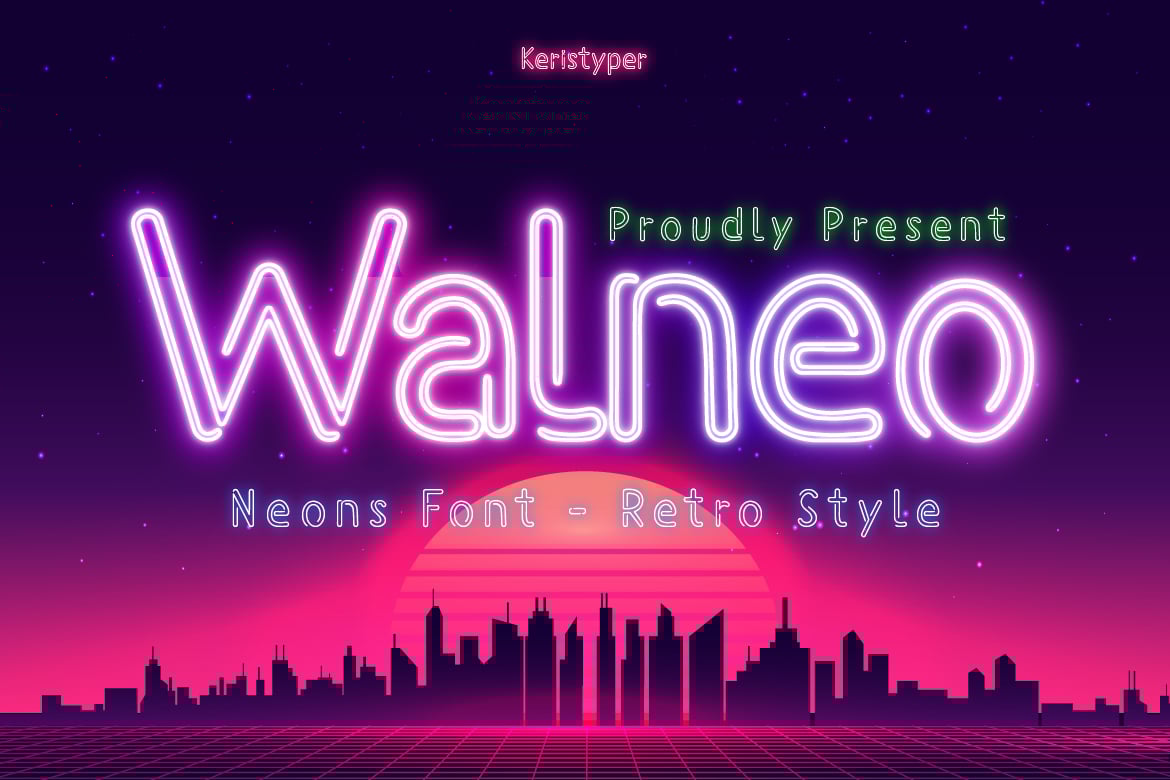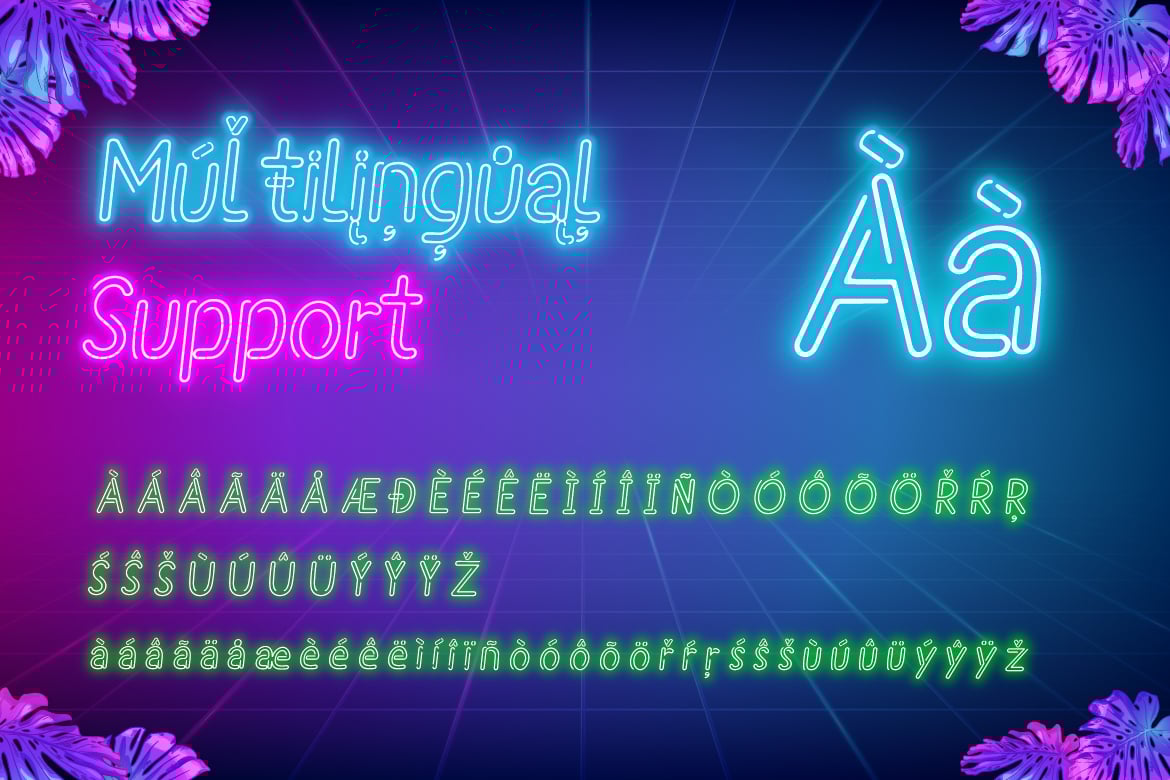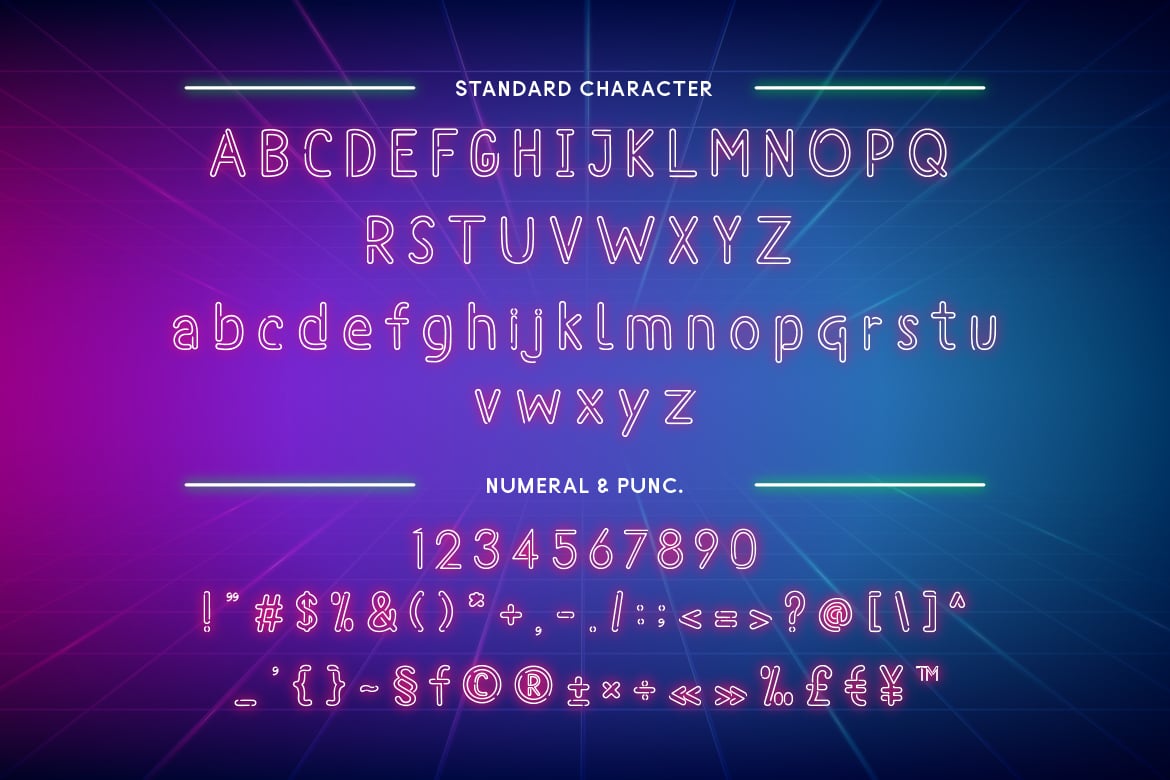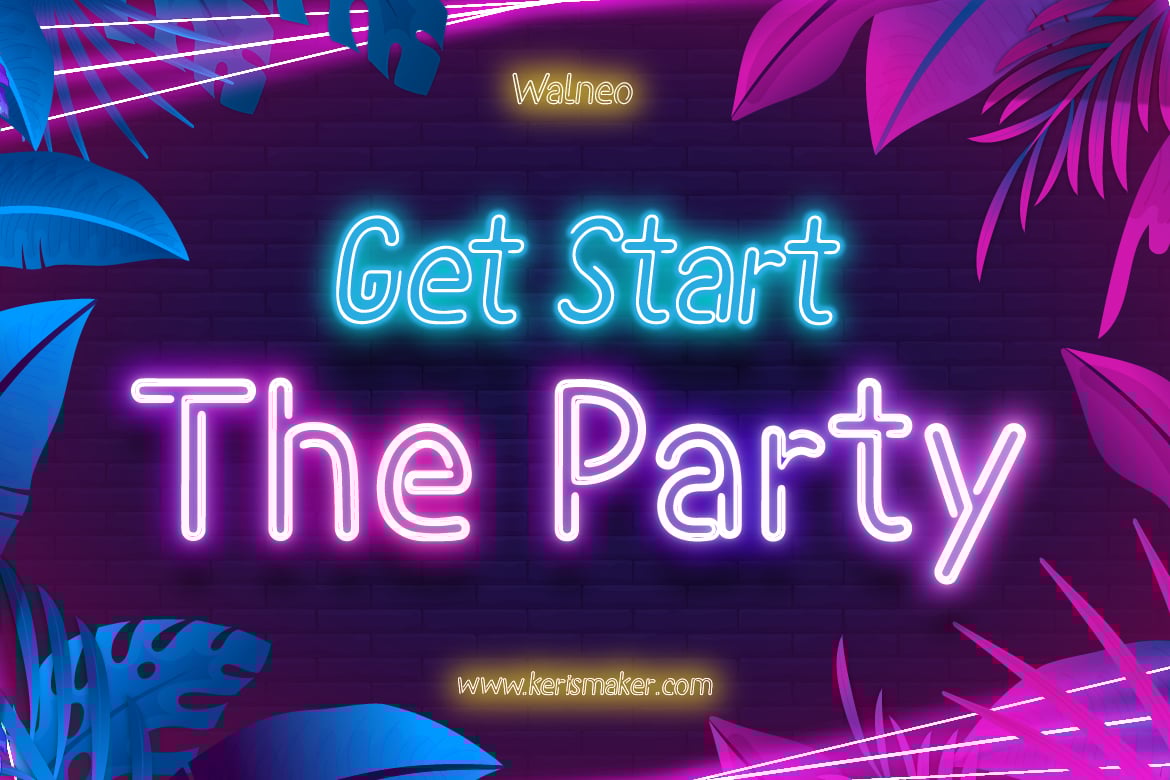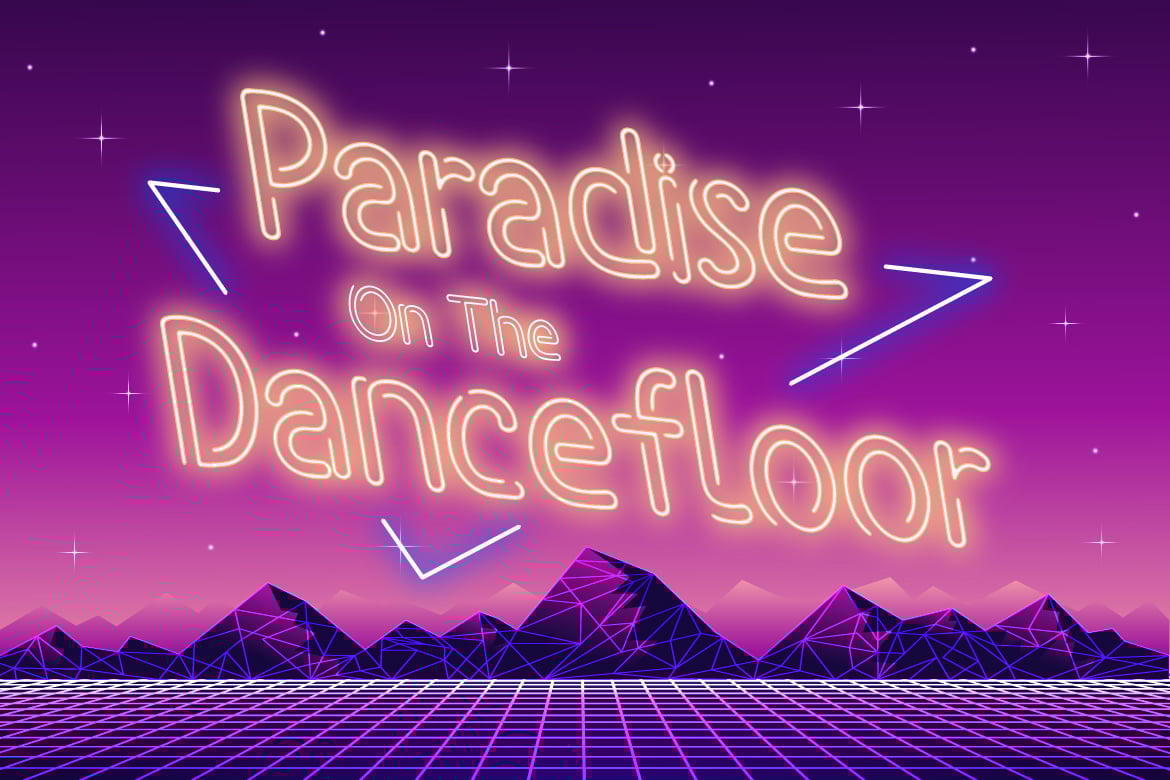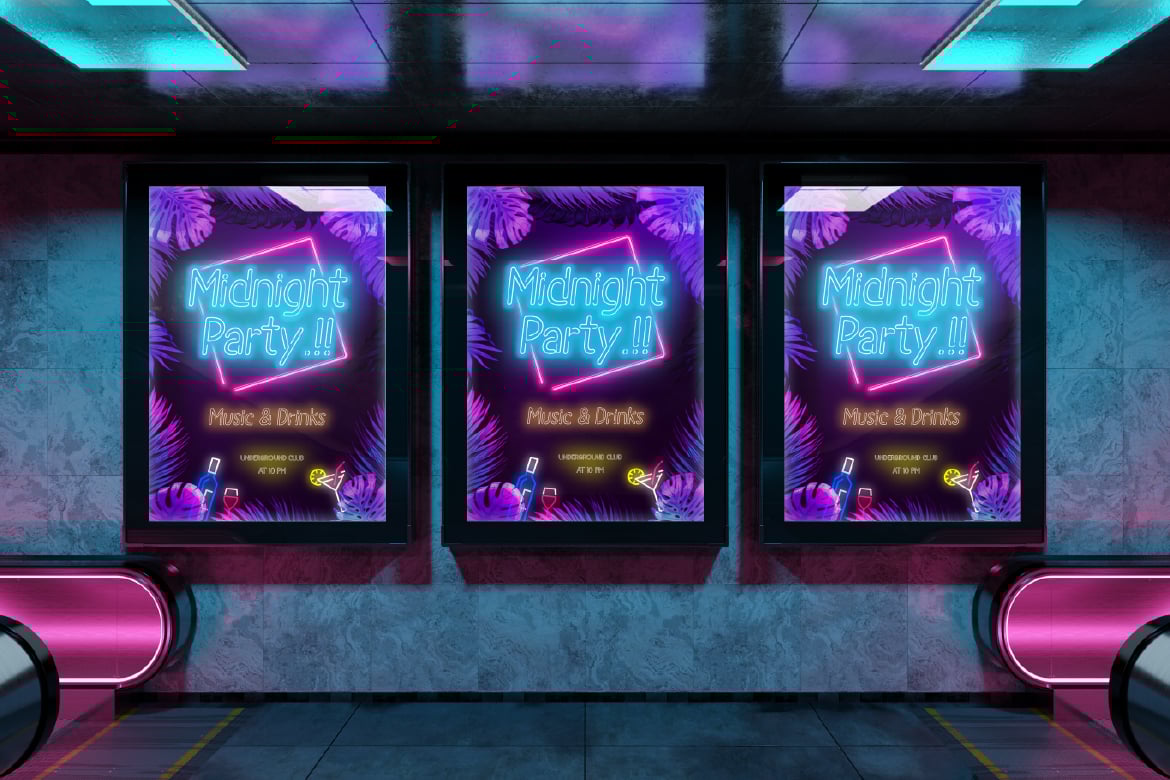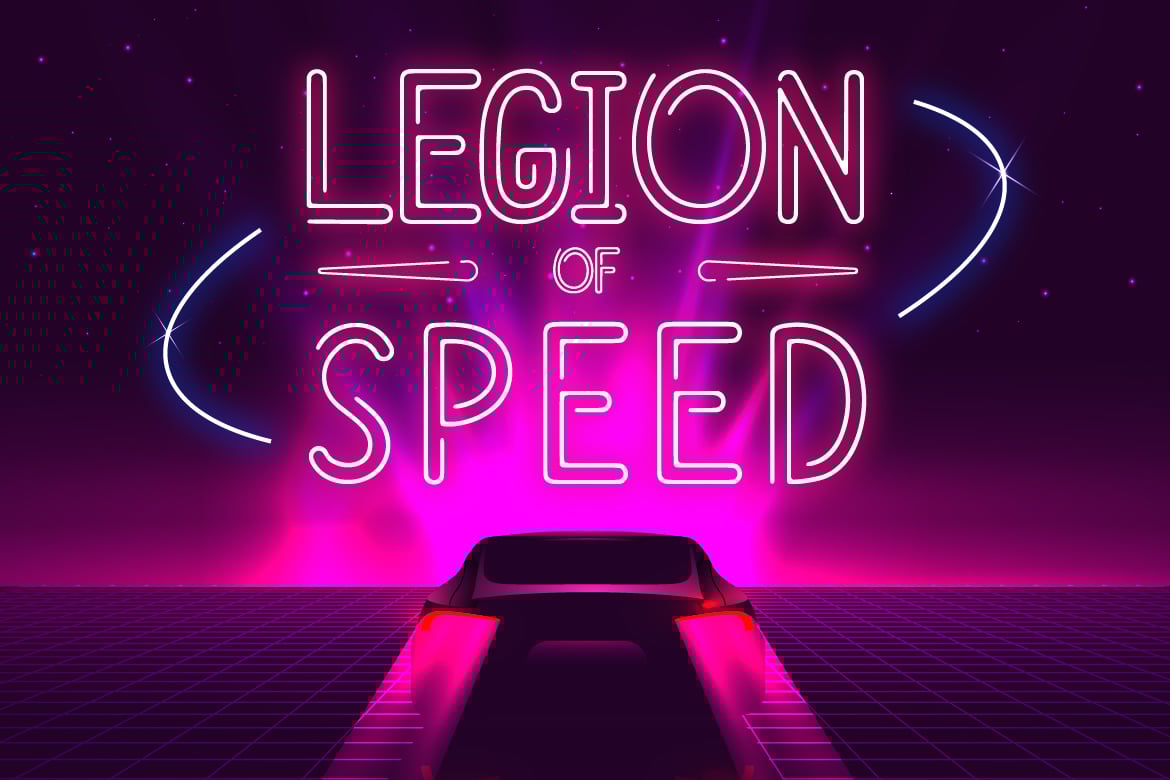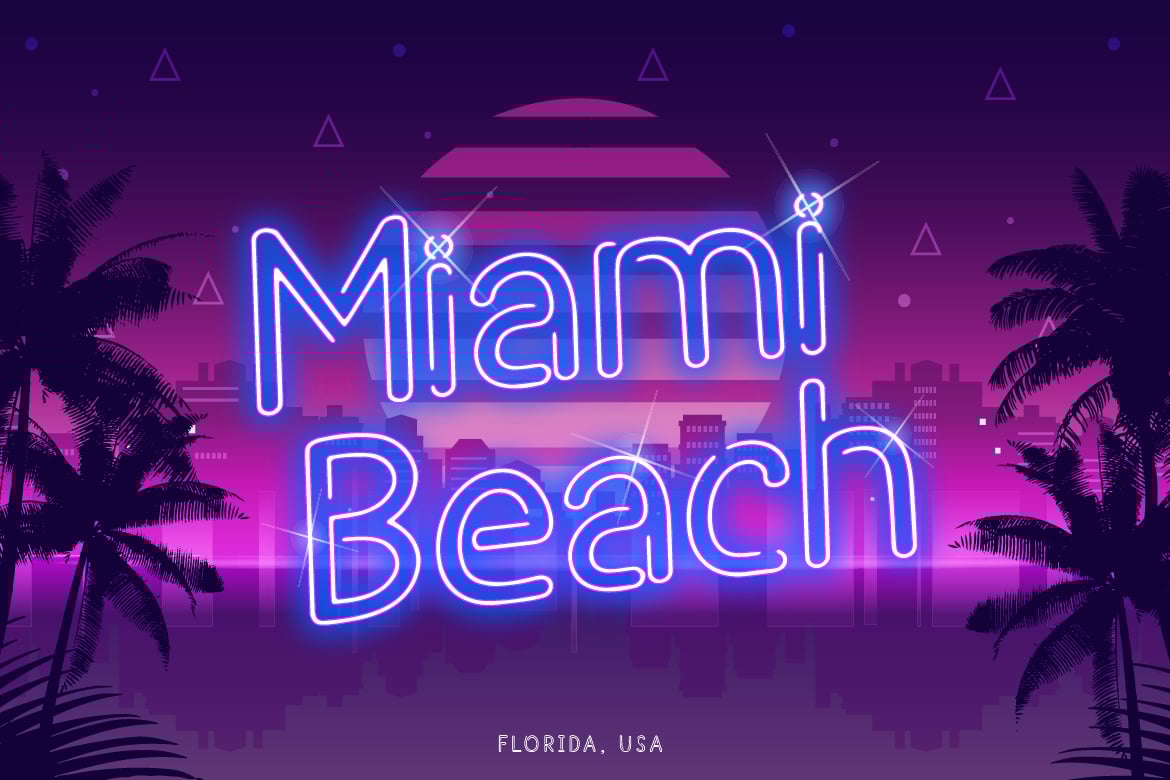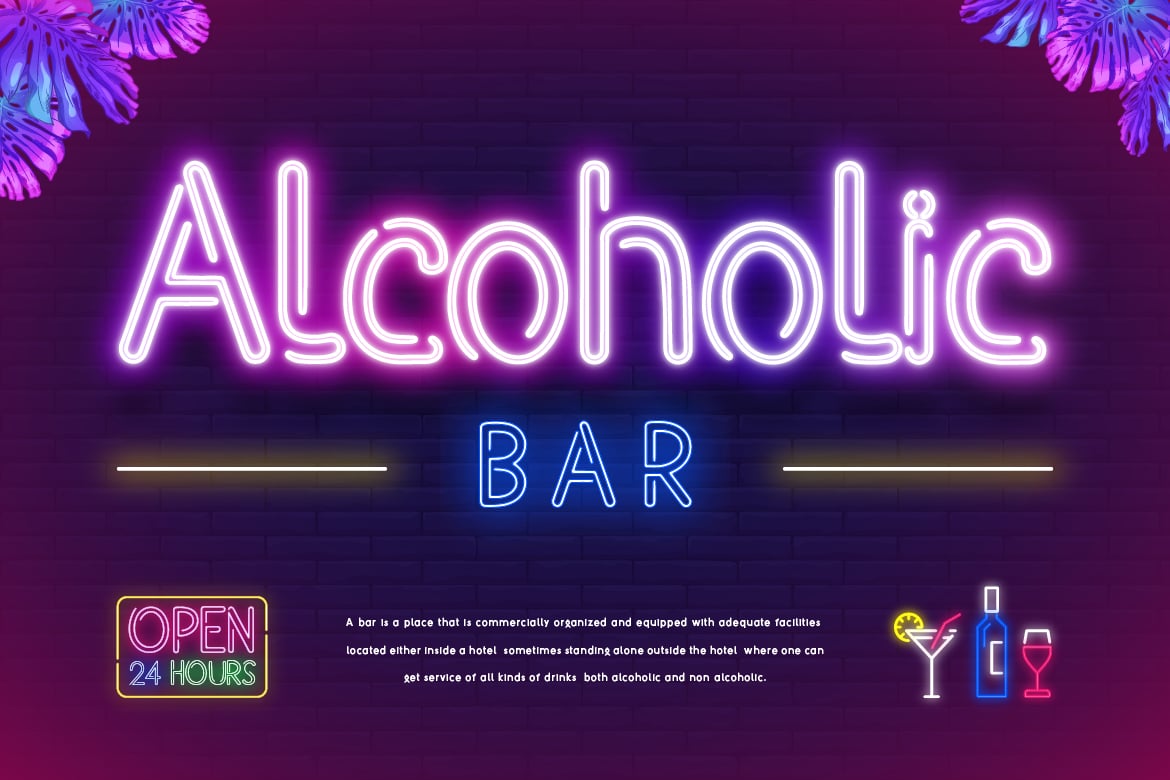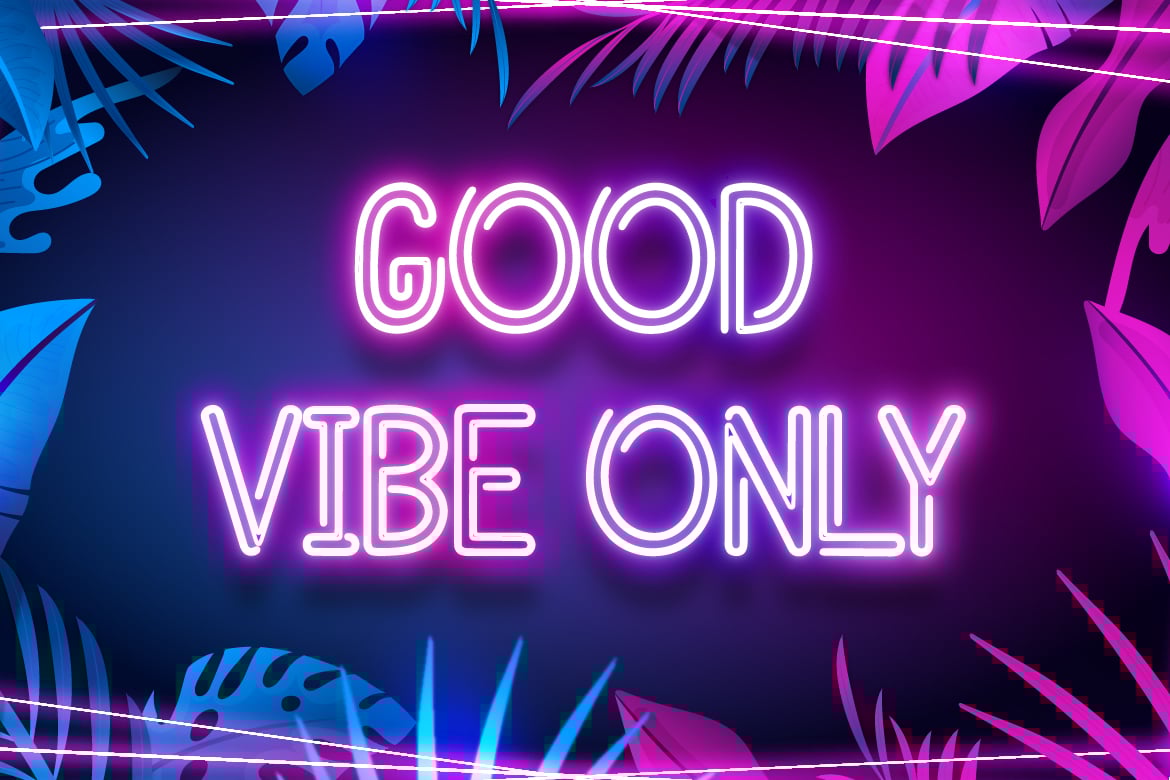
Walneo Font
Walneo is a decorative neon font inspired by Retro night neon light signs. This font is good for logo design, Social media, Movie Titles, Books Titles, short text even long text letters, and good for your secondary text font with sans or serif.
- Standard Uppercase & Lowercase
- Multilingual : ä ö ü Ä Ö Ü ß ¿ ¡
- Alternate & Ligature